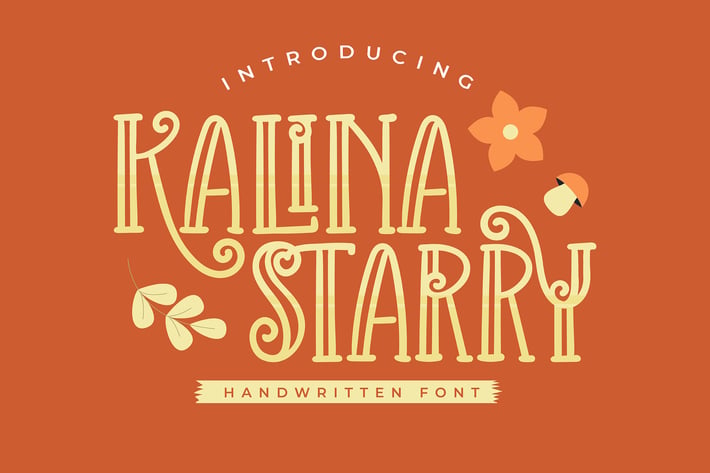
Kalina Starry | Handwritten Font
Author Vunira
Kalina Starry | Handwritten Font with a calligraphy style, So beautiful on invitation like greeting cards, branding materials, business cards, quotes, posters, and more!